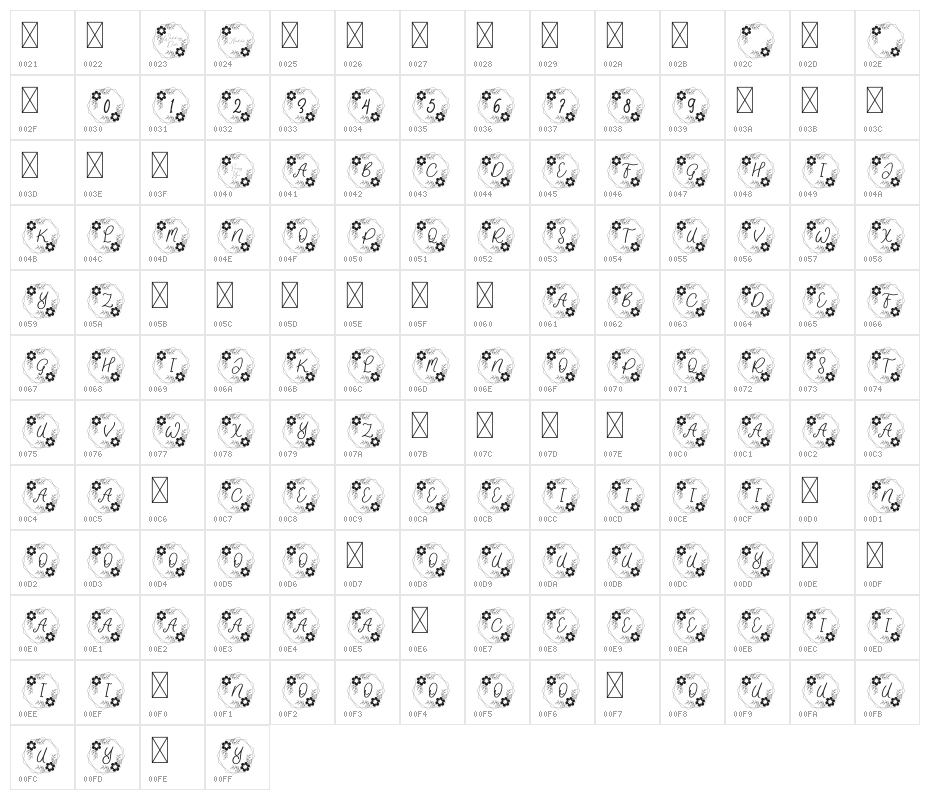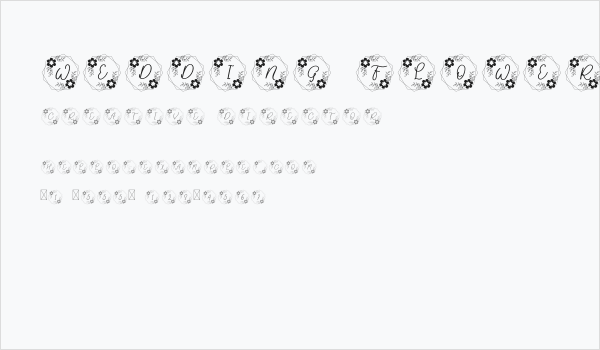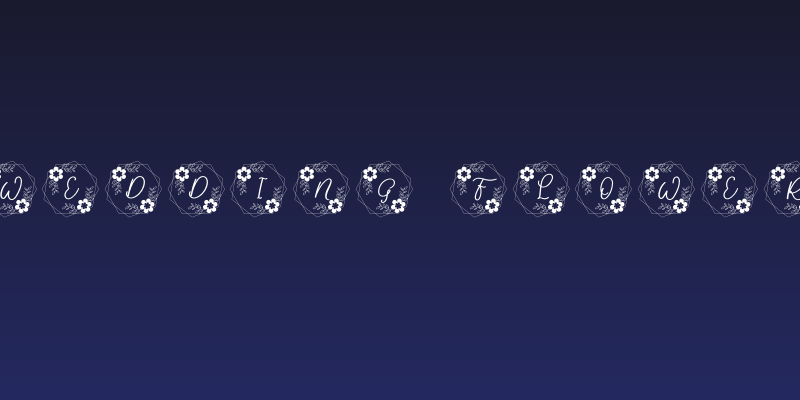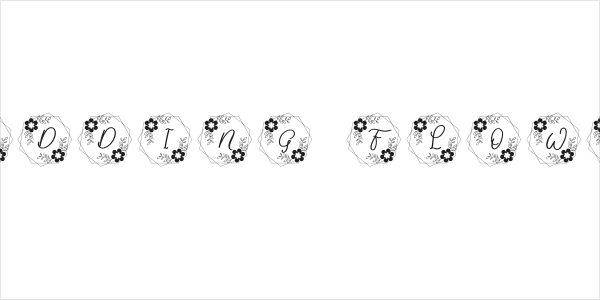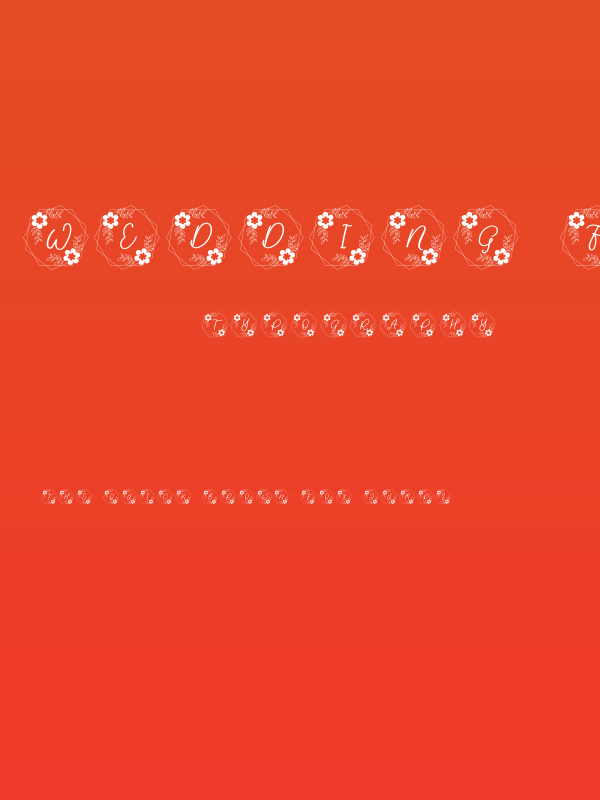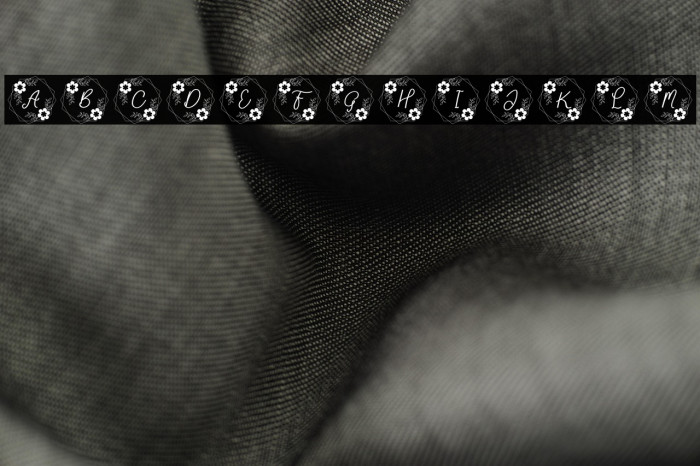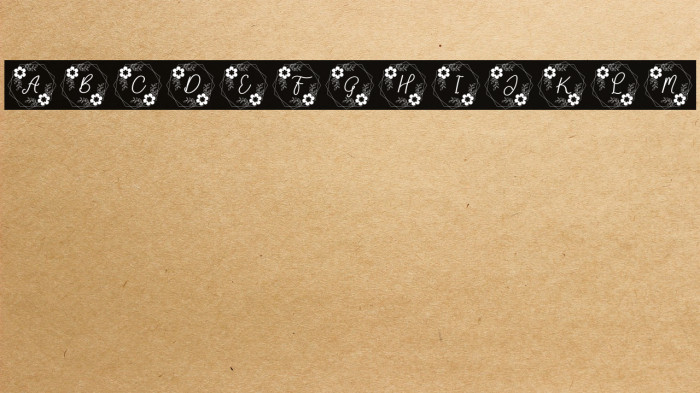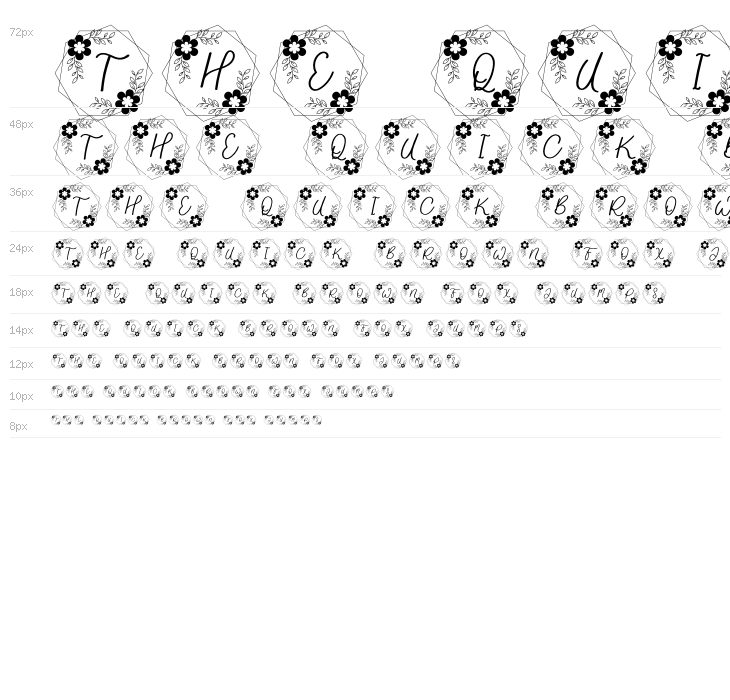
Wedding Flower Font
Wedding Flower Description
This font features elegant, script-style lettering encased within decorative floral wreaths, offering a romantic and sophisticated aesthetic. The uppercase and lowercase letters are gracefully designed, with each character surrounded by a delicate arrangement of flowers and leaves, adding a touch of nature-inspired beauty. The numbers and special characters maintain this cohesive style, ensuring a consistent visual theme throughout. The font's intricate details and ornamental elements make it ideal for projects that require a touch of elegance and charm.
| Overall Style | Romantic, Elegant, Decorative |
| Use Case | Headlines, Invitations, Decorative text |
| Proposed Projects | Ideal for wedding invitations, greeting cards, event signage, and decorative branding projects. |